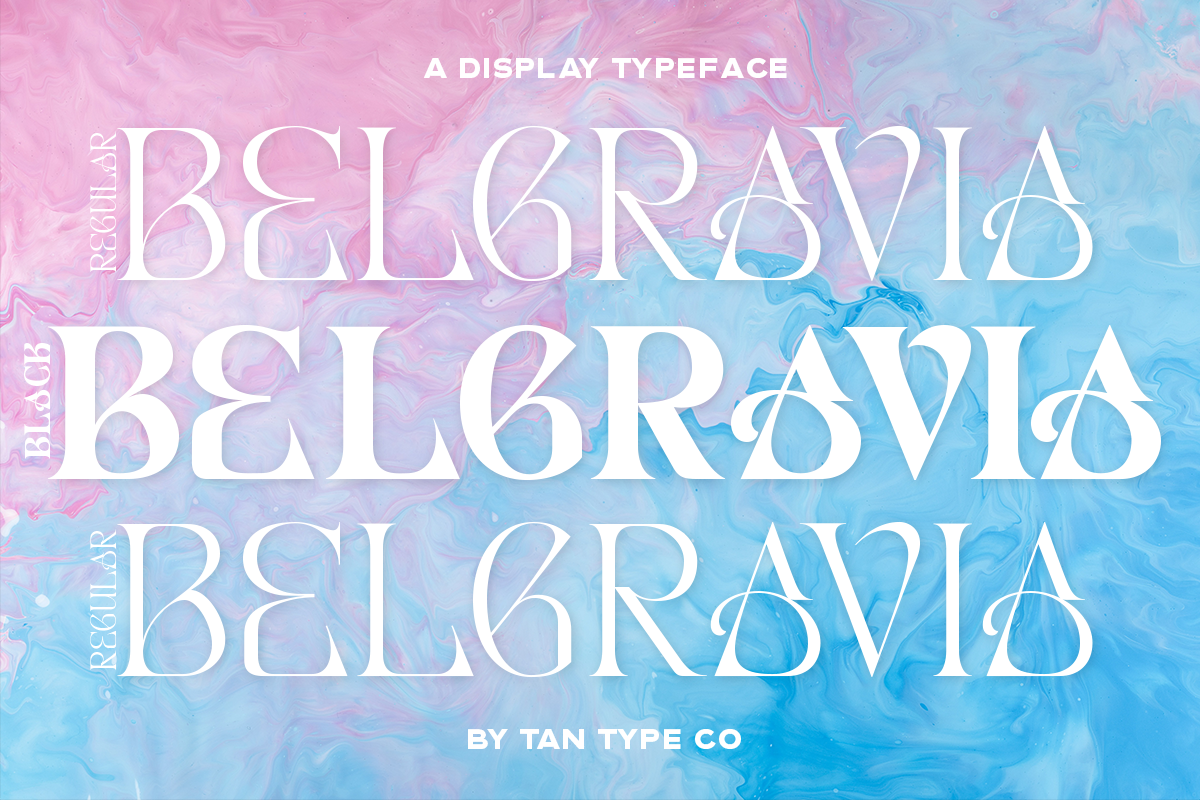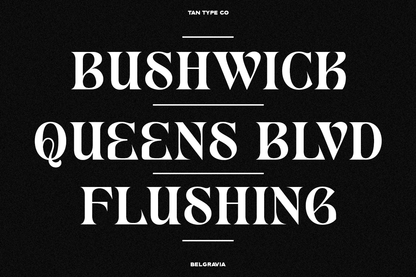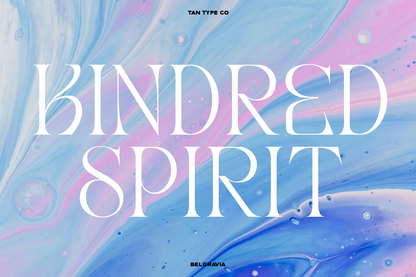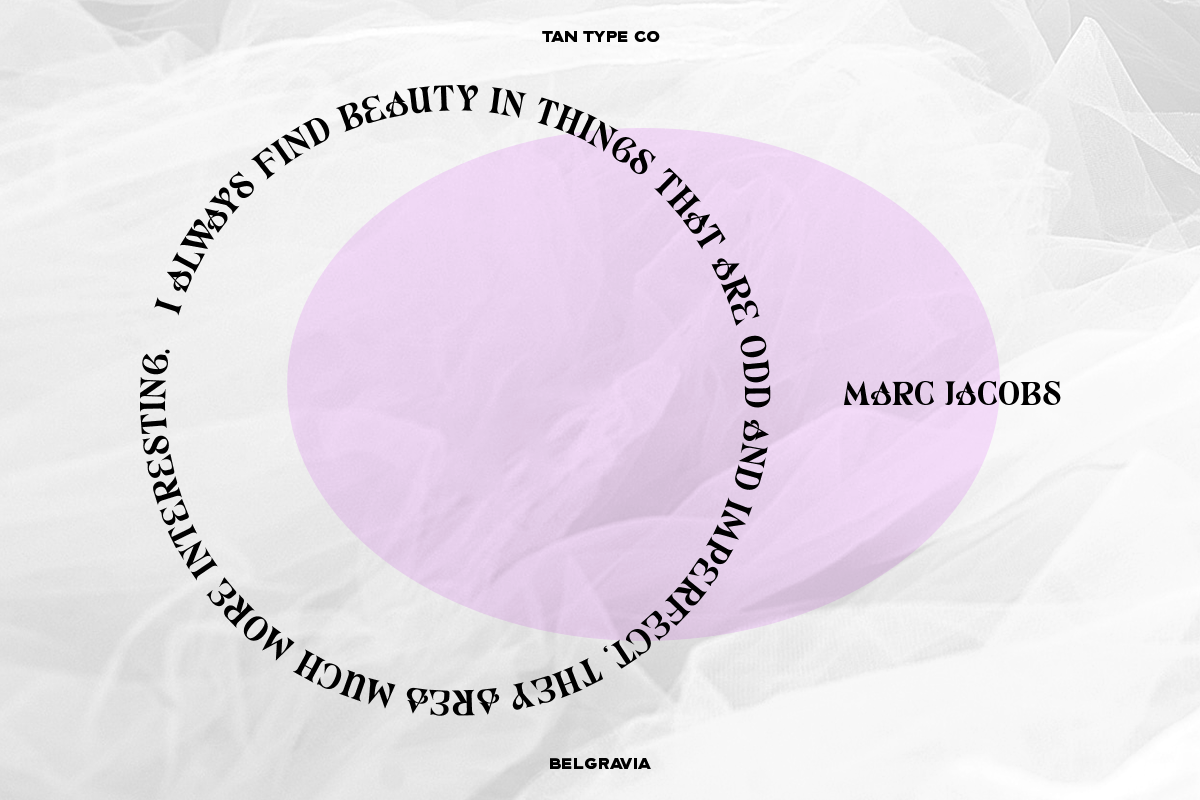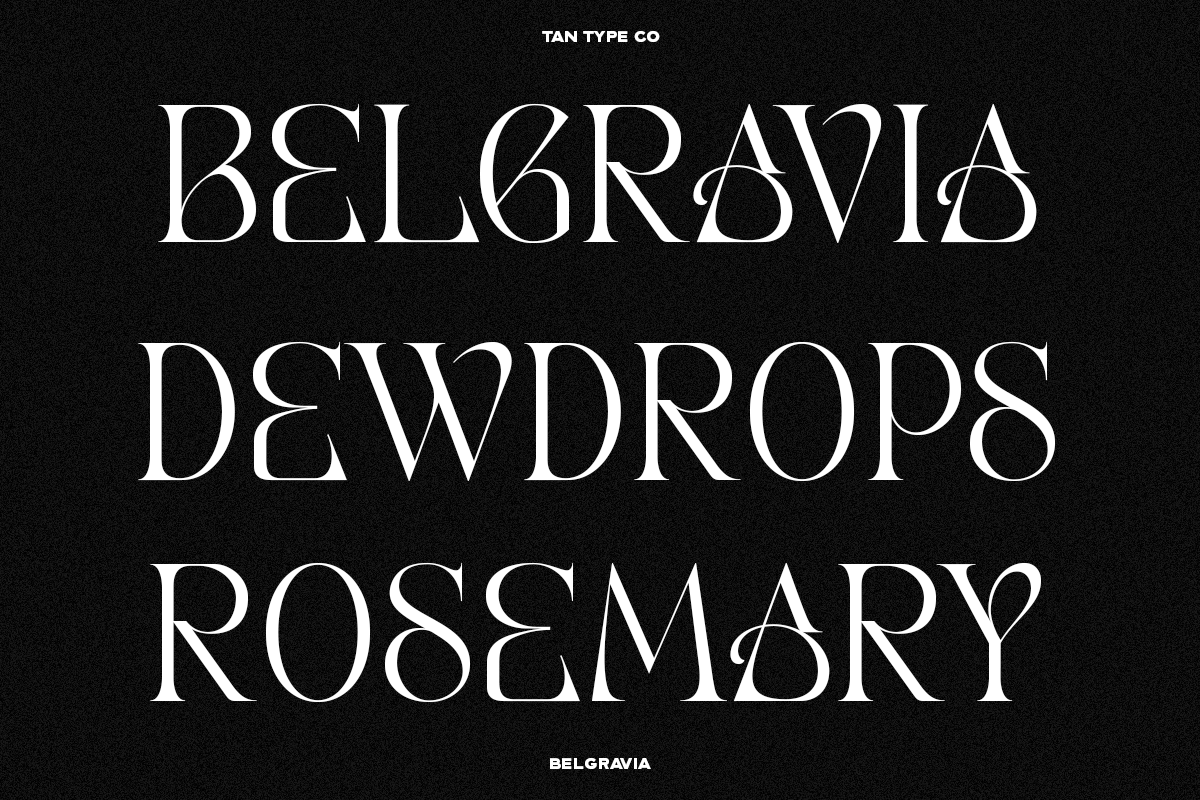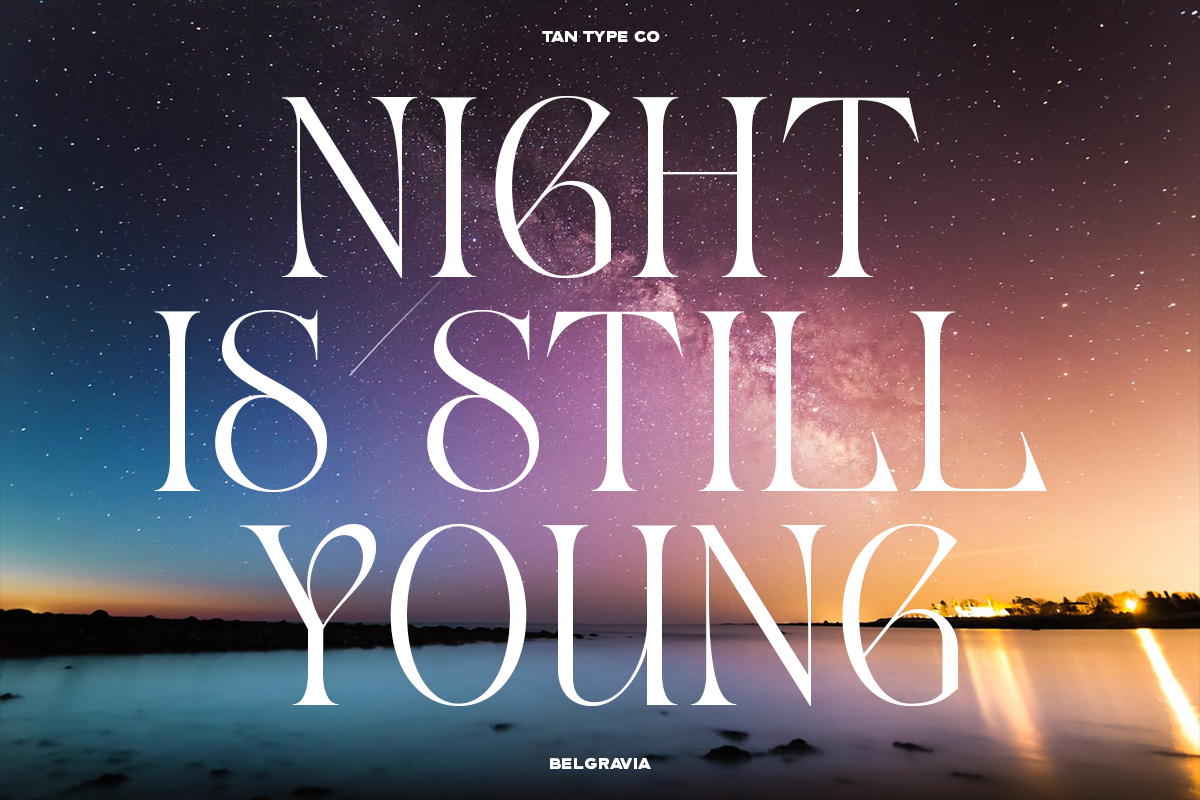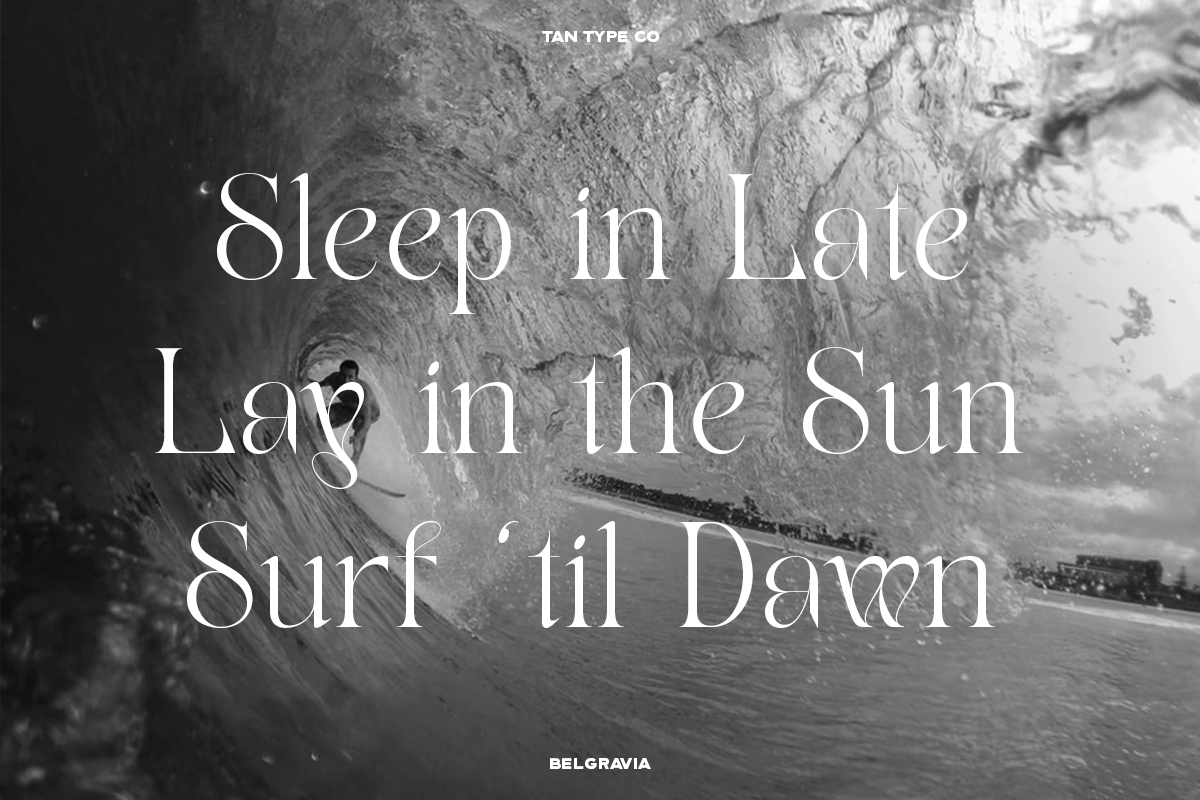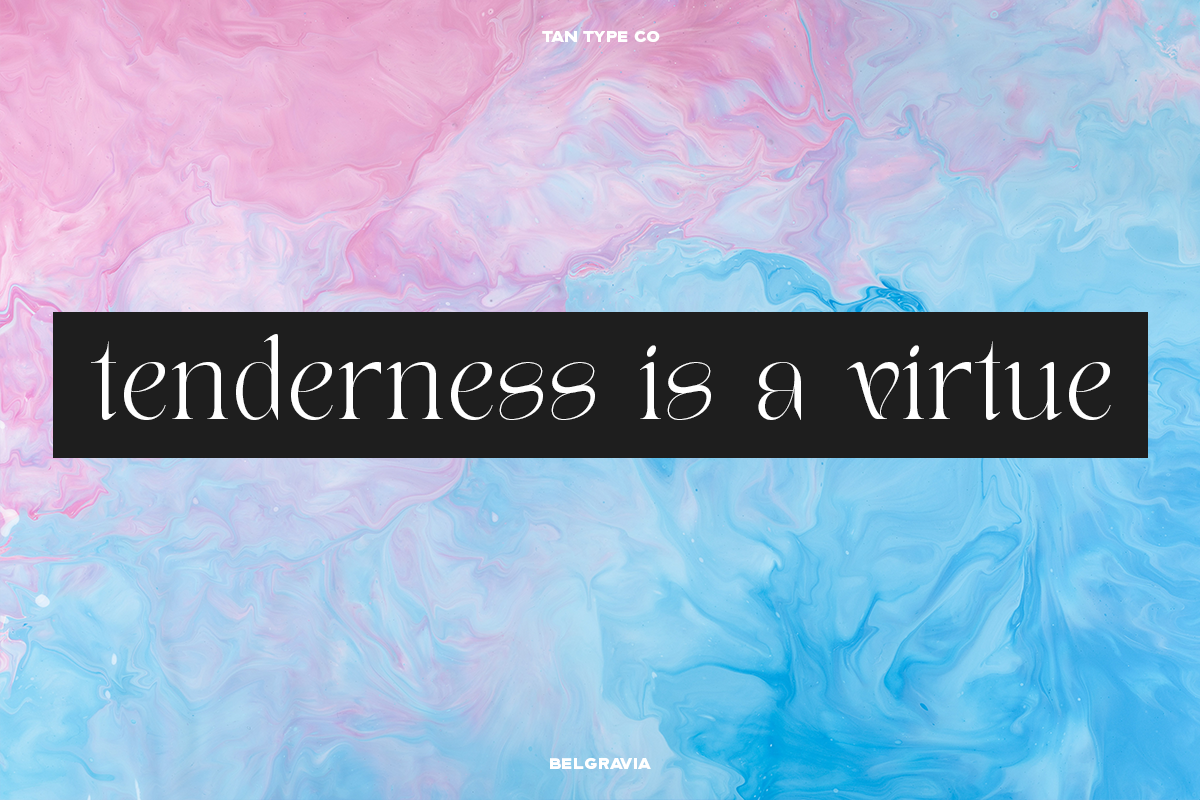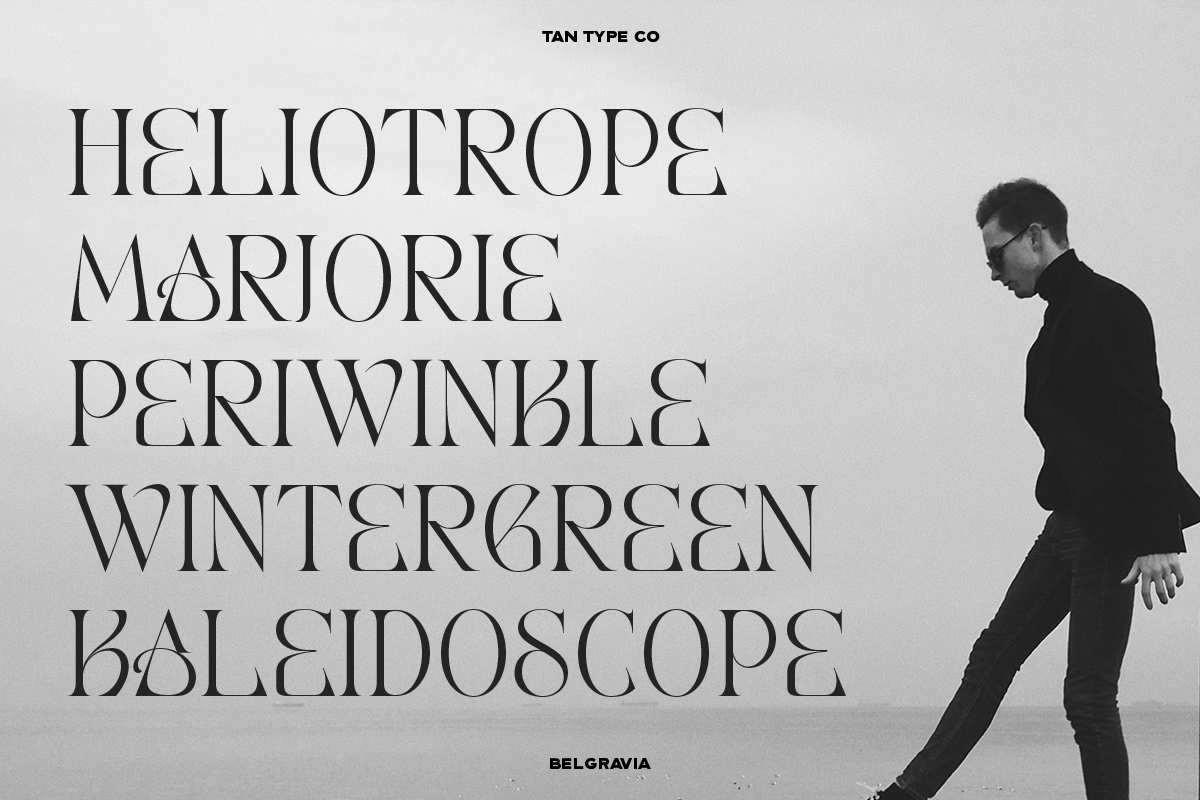
BELGRAVIA is a decorative display serif font that exudes high-fashion flair and ornate elegance. Its unique, swirling letterforms add a couture-like charm to any layout.